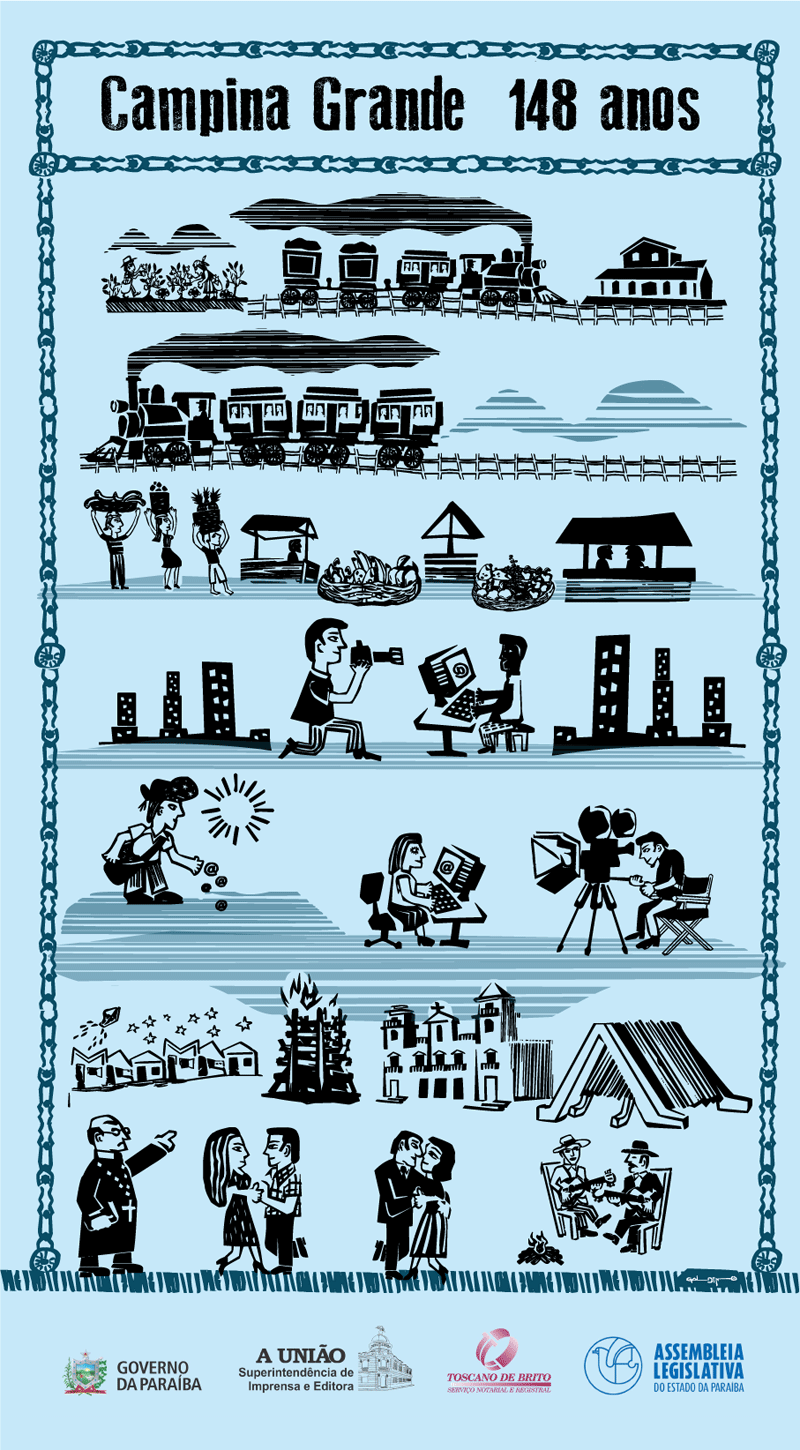
This dingbat retracts specifically the northeast couture and the european influence over it. From Don Quixote to Lampiao, legends and myths, archetypes and cliches. From wealthness to the bottom poorness, the portrait of what is it that happens on Brazil's northeast. We can capture luxe and misery coexisting, as we can see here. ***For now, the only site authorized by me to post my fonts is dafont.com. Sites like Fonts 2U, font River and similar sites, are not allowed to post any font created by me constituting crime against copyright. |